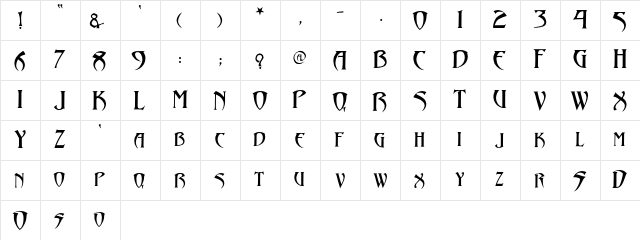
Abaddon Regular
Design Context for Abaddon Typeface
Abaddon is a composed and adaptable typeface that performs quietly and consistently across a wide range of design contexts.